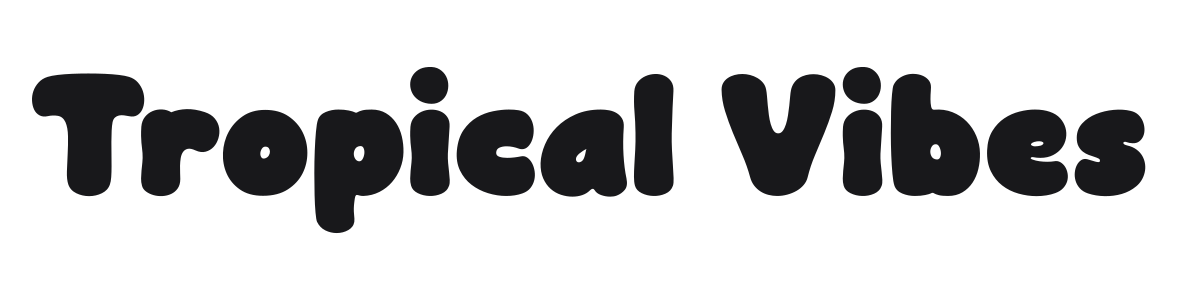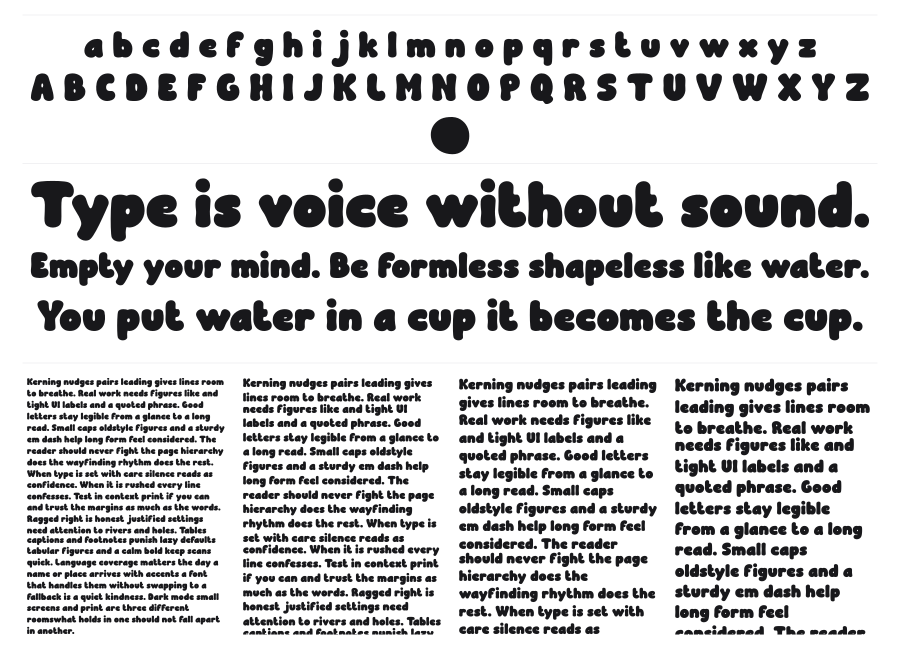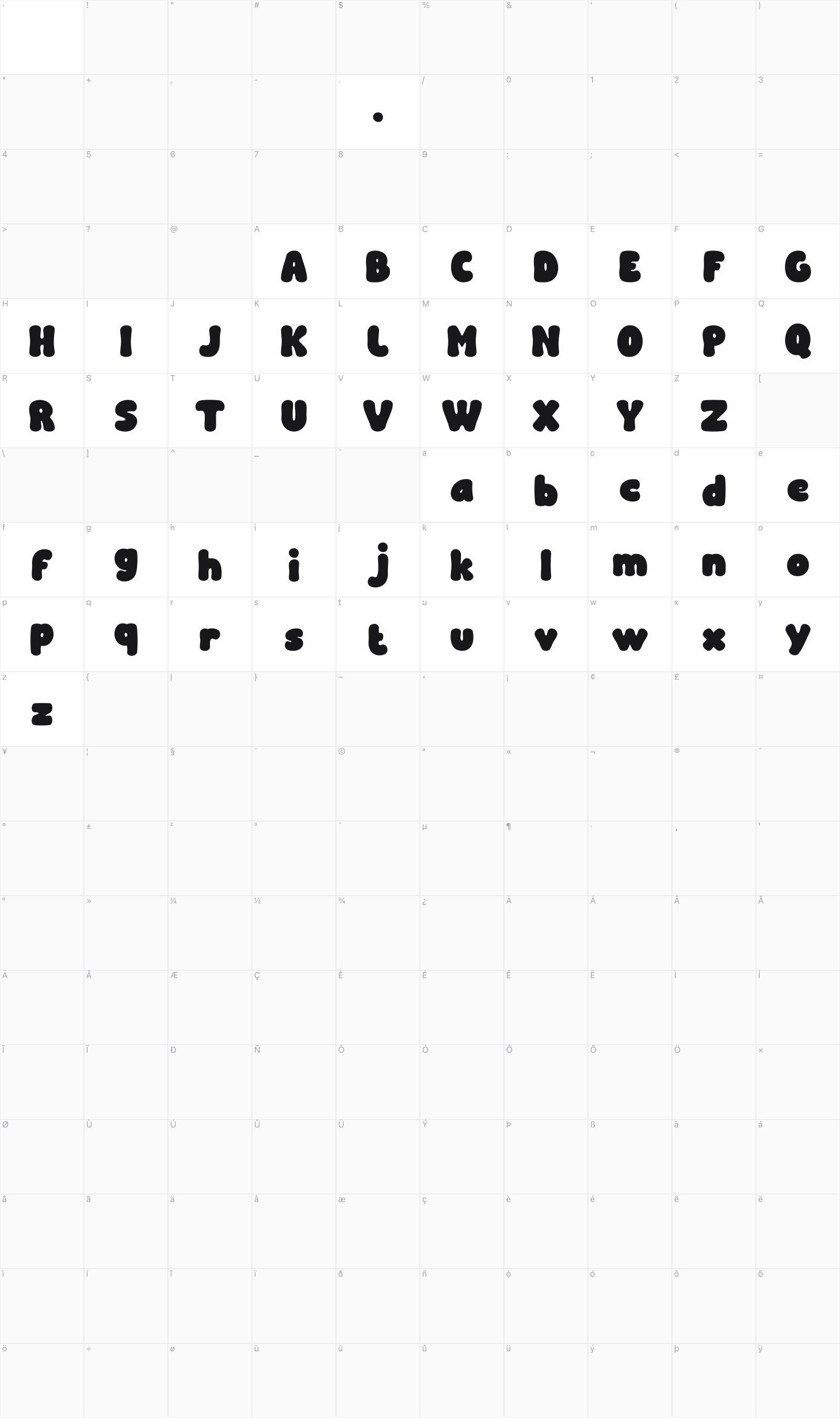
Tropical Vibes
Tropical Vibes is a heavy bubble-rounded display font with thick, inflated strokes and a cheerful 1970s groovy personality. The exaggerated roundness and near-zero stroke contrast give every character a soft, balloon-like quality that reads instantly as fun and laid-back. It suits headline work where personality is the whole point: packaging, event posters, and brand identities that want warmth without taking themselves too seriously.